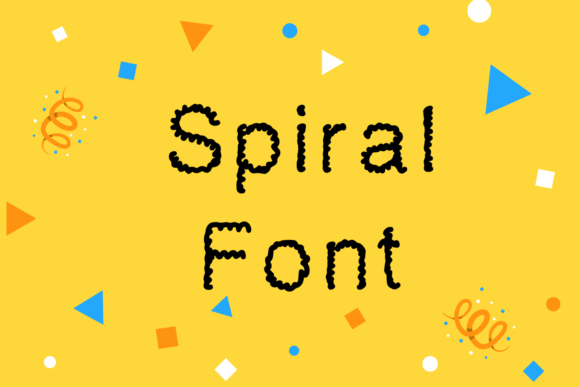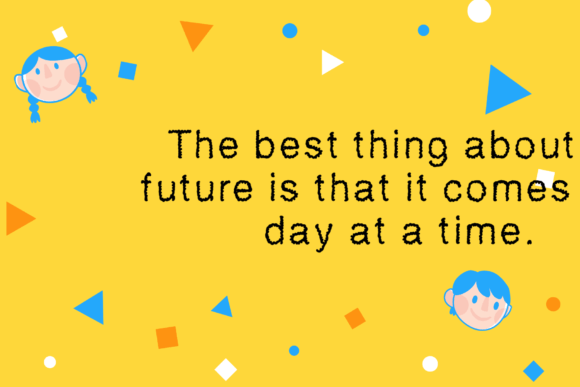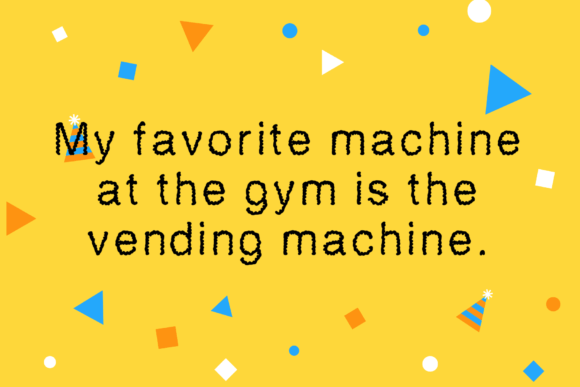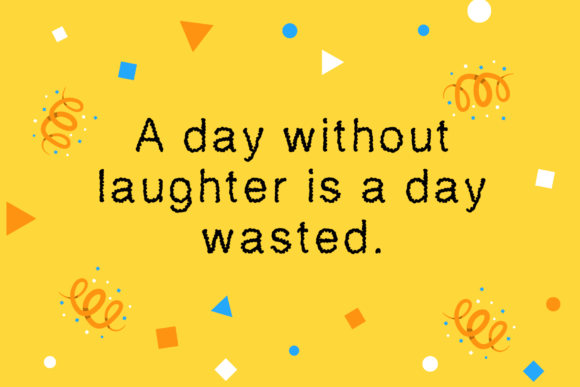
Spiral Font
About Spiral Font
**Spiral Font: Where Playfulness Meets Curly Charm**
Introducing “Spiral,” a curly handwritten font designed to infuse your designs with a sense of playfulness and charm. Tailor-made for projects with a fun and lively essence, Spiral captivates attention and adds a delightful touch to any creative endeavor.
At the core of “Spiral” is a unique combination of playfulness and curly charm. The font’s whimsical curls and twists give it a distinctive character, making it the perfect choice for designs that aim to stand out and capture everyone’s attention. More than just a typeface, Spiral transforms your text into a visual celebration, radiating joy and energy.
The versatility of “Spiral” opens up a world of creative possibilities. Picture it enhancing the vibrancy of posters, adding a playful element to social media posts, or becoming the go-to font for designs that demand a touch of whimsy. This font becomes a dynamic companion, effortlessly aligning with the essence of your creative vision.
The adaptability of “Spiral” makes it suitable for a variety of projects across different mediums. Whether you’re working on invitations, crafting eye-catching banners, or creating playful T-shirt designs, this font becomes the curly brushstroke that adds a delightful twist to your work.
In conclusion, “Spiral” is more than just a font; it’s a playful journey where fun meets curly charm. Embrace it, and watch your designs come alive with a sense of joy and creativity. With “Spiral,” every letter becomes a playful curl, leaving an indelible mark of charm on your design journey.